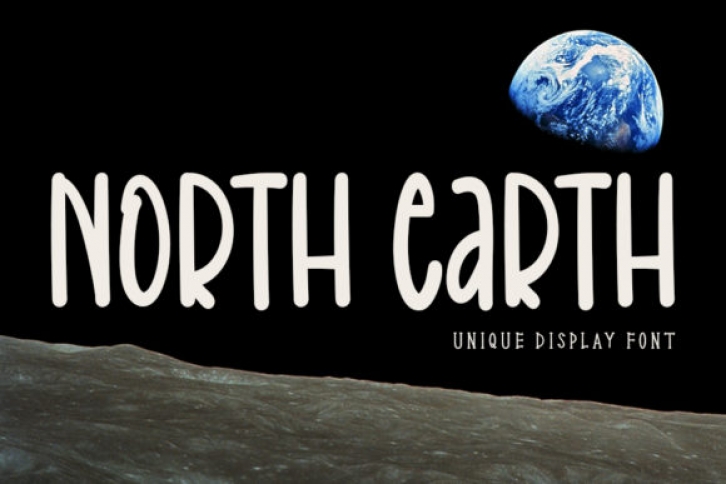
North Earth is a simple and imposing display font. This original look will appeal to a wide range of crafty ideas, from letterheads and titles, to stationery.